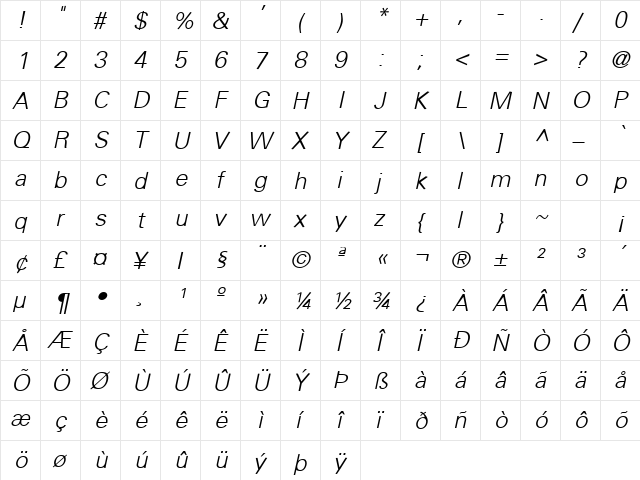
Black Dog 16 Italic Font Preview
Black Dog 16 Italic
Black Dog 16 Italic Font Details
Design Context for Black Dog 16 Typeface
Black Dog 16 offers clean, dependable letterforms without strong stylistic allegiance, making it a practical choice for designers who need flexibility. The dynamic lean of this cut emphasises speed and emphasis in any layout.
Pro Tip: Try Black Dog 16 for annotation and caption copy alongside an upright companion — the contrast in angle creates a dynamic but ordered typographic system.